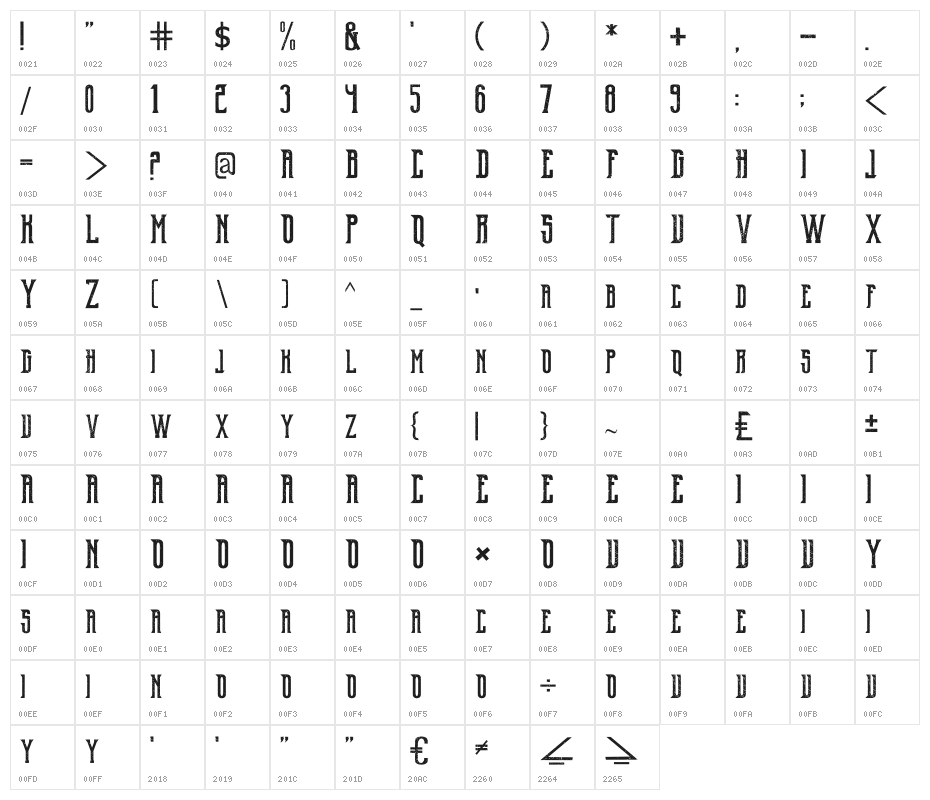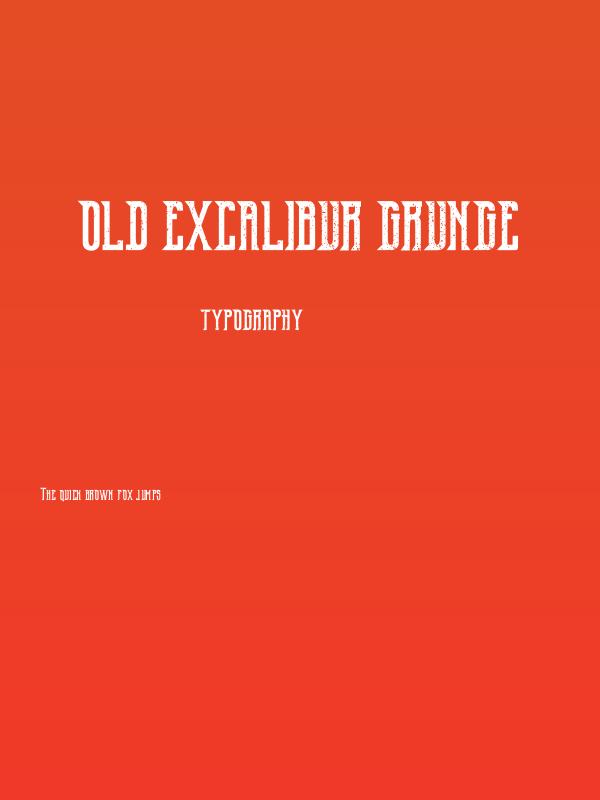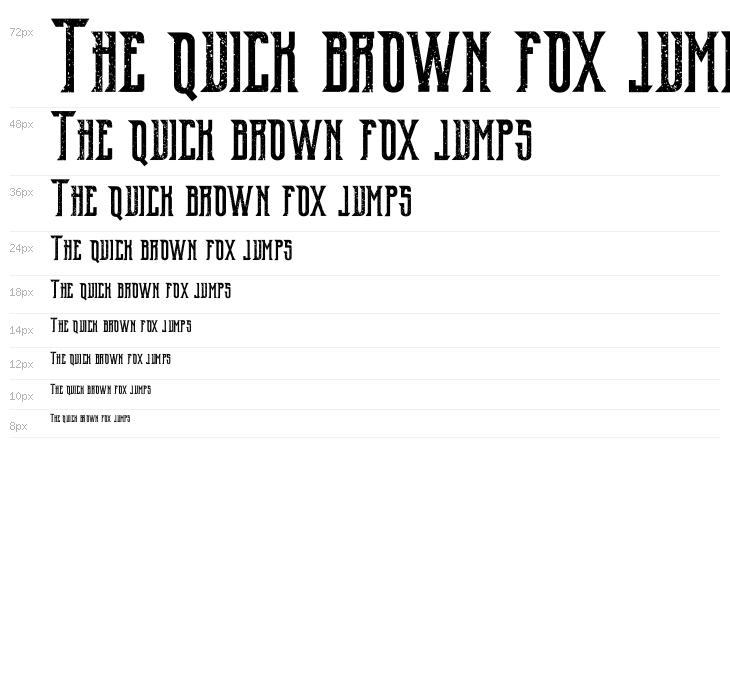
Old Excalibur Grunge Font
Old Excalibur Grunge Description
This font features a bold, distressed style with a grunge texture that gives it a rugged and worn appearance. The uppercase and lowercase letters are designed with sharp, angular edges, adding a sense of strength and impact. The numbers and special characters maintain the same distressed look, ensuring consistency across all glyphs. The font's unique texture makes it stand out, adding a vintage and rebellious feel to any design. Its boldness and distinctive style make it ideal for projects that require a strong visual presence.
| Overall Style | Vintage, Grunge |
| Proposed Projects | Ideal for music album covers, posters, branding for edgy or alternative products, and any design needing a vintage or rebellious touch. |